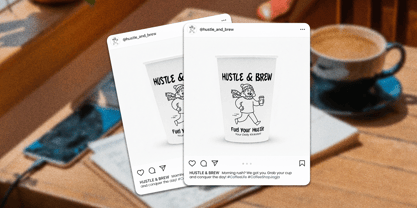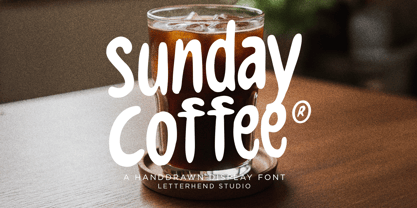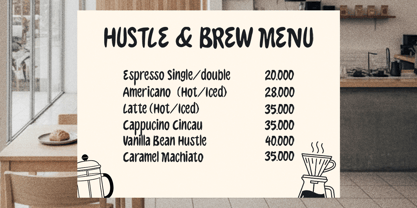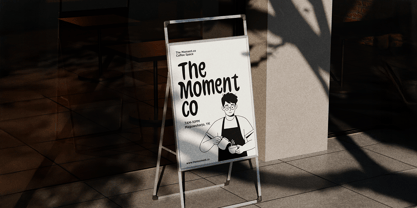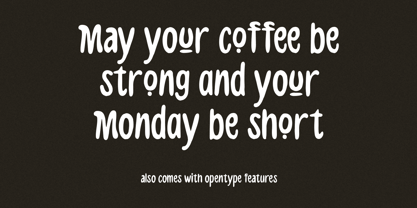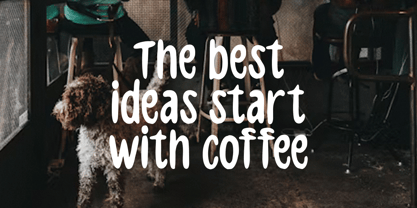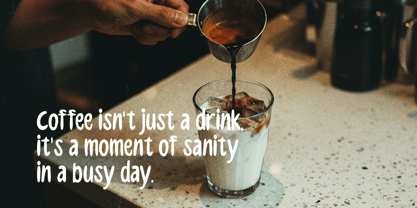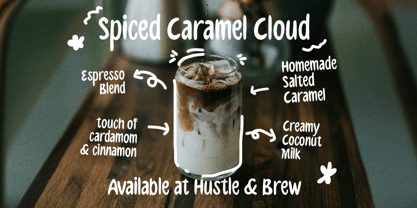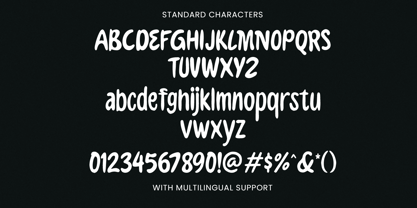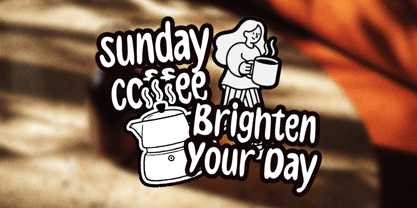
Sunday Coffee
A família de fontes Sunday Coffee foi desenhada por Hendry Juanda e publicada pela Letterhend. Sunday Coffee contém 1 estilos. Saiba mais sobre esta família
Sunday Coffee, a hand-drawn display font that feels warm, playfuf & organic. Its chunky letterforms feature soft, rounded edges and a slightly wobbly, organic shape that brings a cheerful, welcoming visual style. This isn’t just a font; it’s a feeling—perfect for creating a friendly, comforting atmosphere on beverage branding, baked goods packaging, cafe signs, charming quote graphics, or any project that needs a casual, handcrafted touch to make its message instantly approachable. Features :Uppercase & lowercase, Numbers and punctuation, Alternates/Ligatures, Multilingual Support & PUA encoded